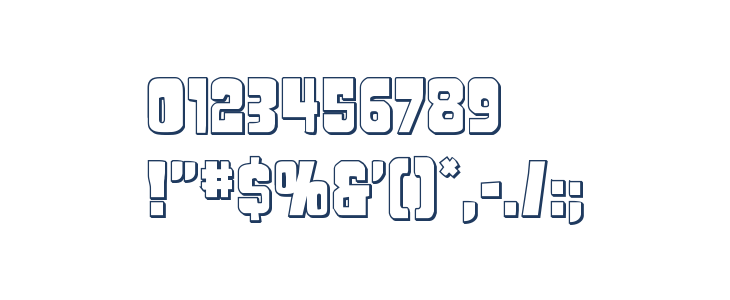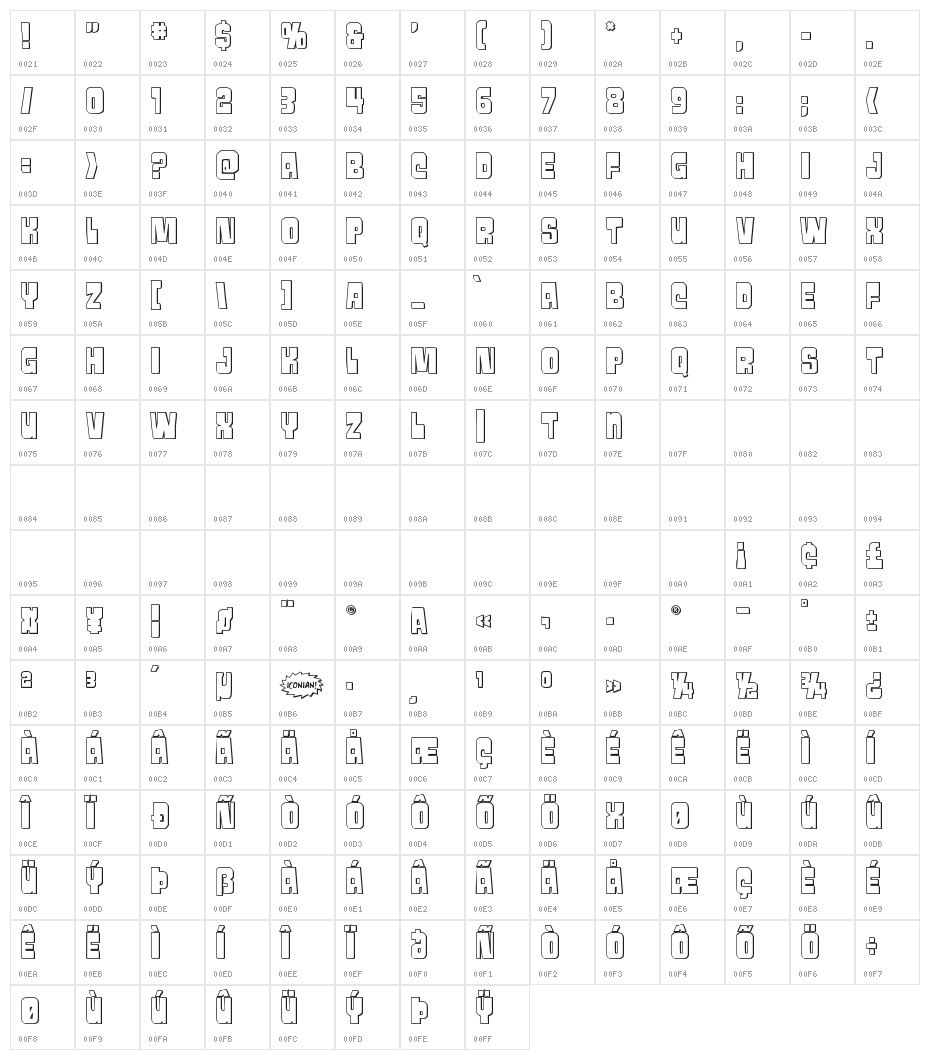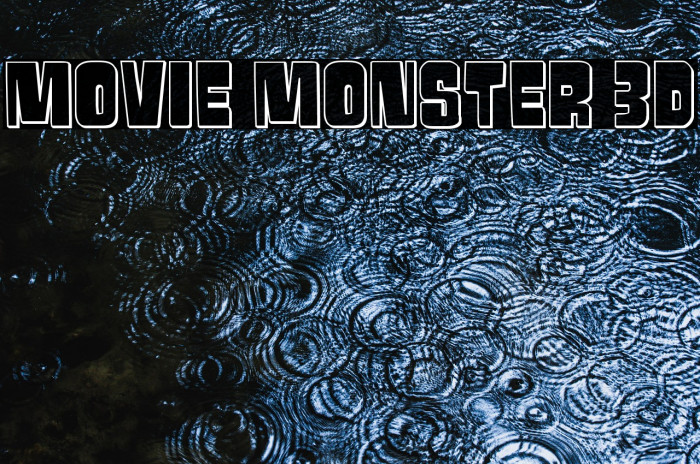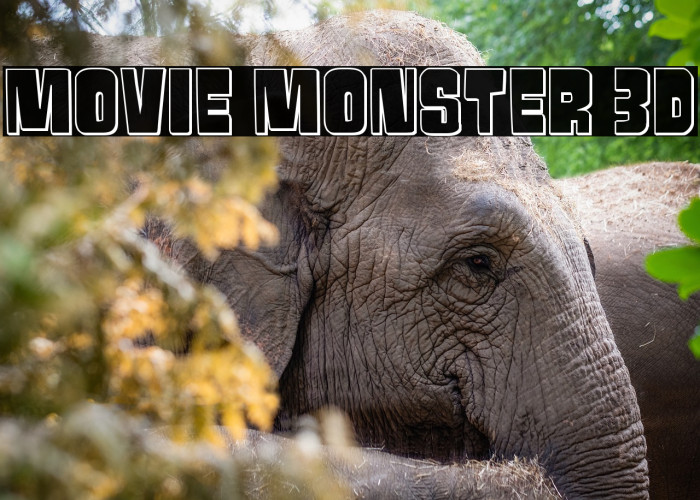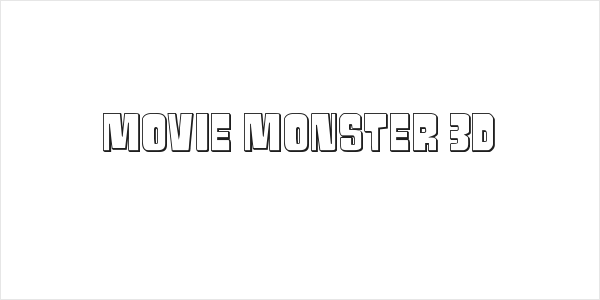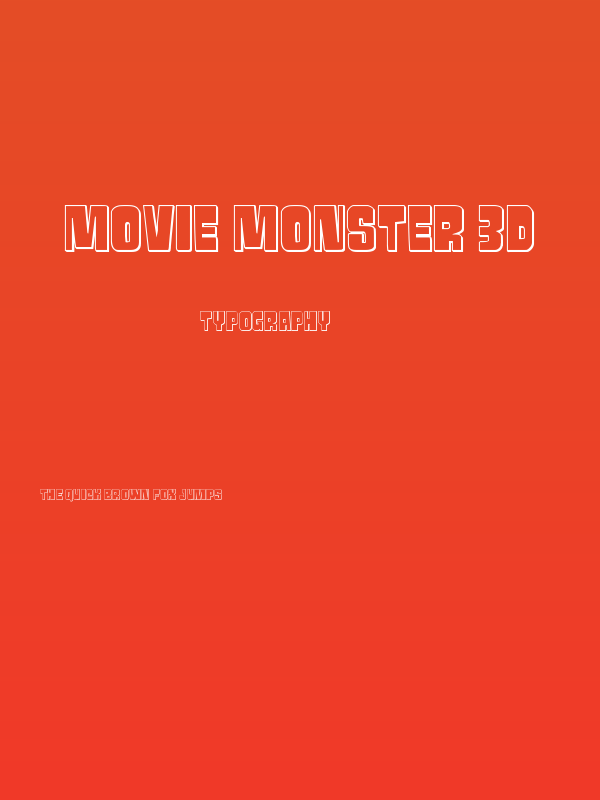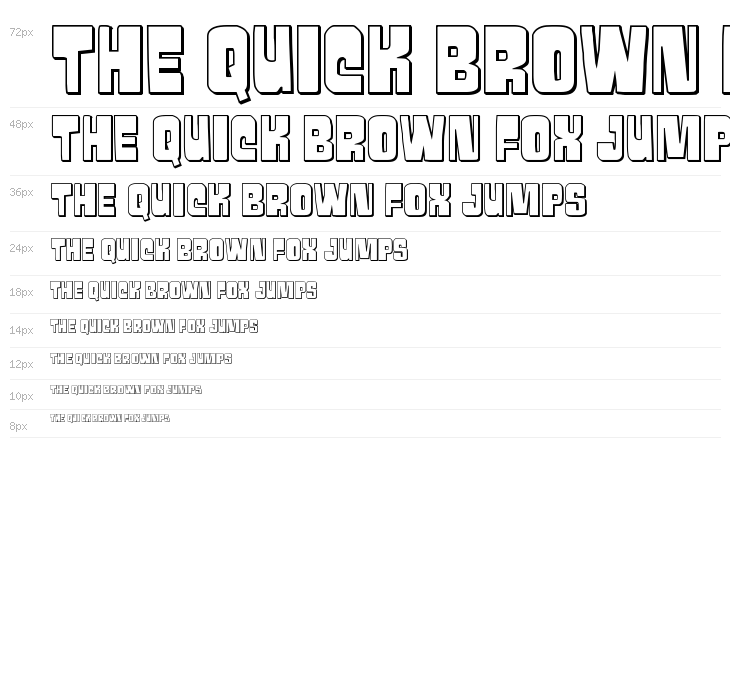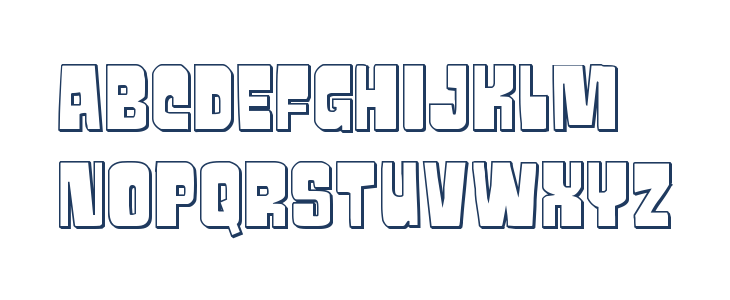
Movie Monster 3D Font
Movie Monster 3D Description
This font features a bold, three-dimensional style that gives each character a blocky, robust appearance. The letters are outlined with a thick black border, enhancing the 3D effect and making them stand out prominently. The design is reminiscent of classic movie posters or comic book titles, where impact and visibility are key. Each character maintains a uniform height and width, contributing to a cohesive and structured look. The font's playful yet assertive style makes it ideal for attention-grabbing headlines or titles. Its geometric shapes and clean lines ensure readability while adding a dynamic visual interest.